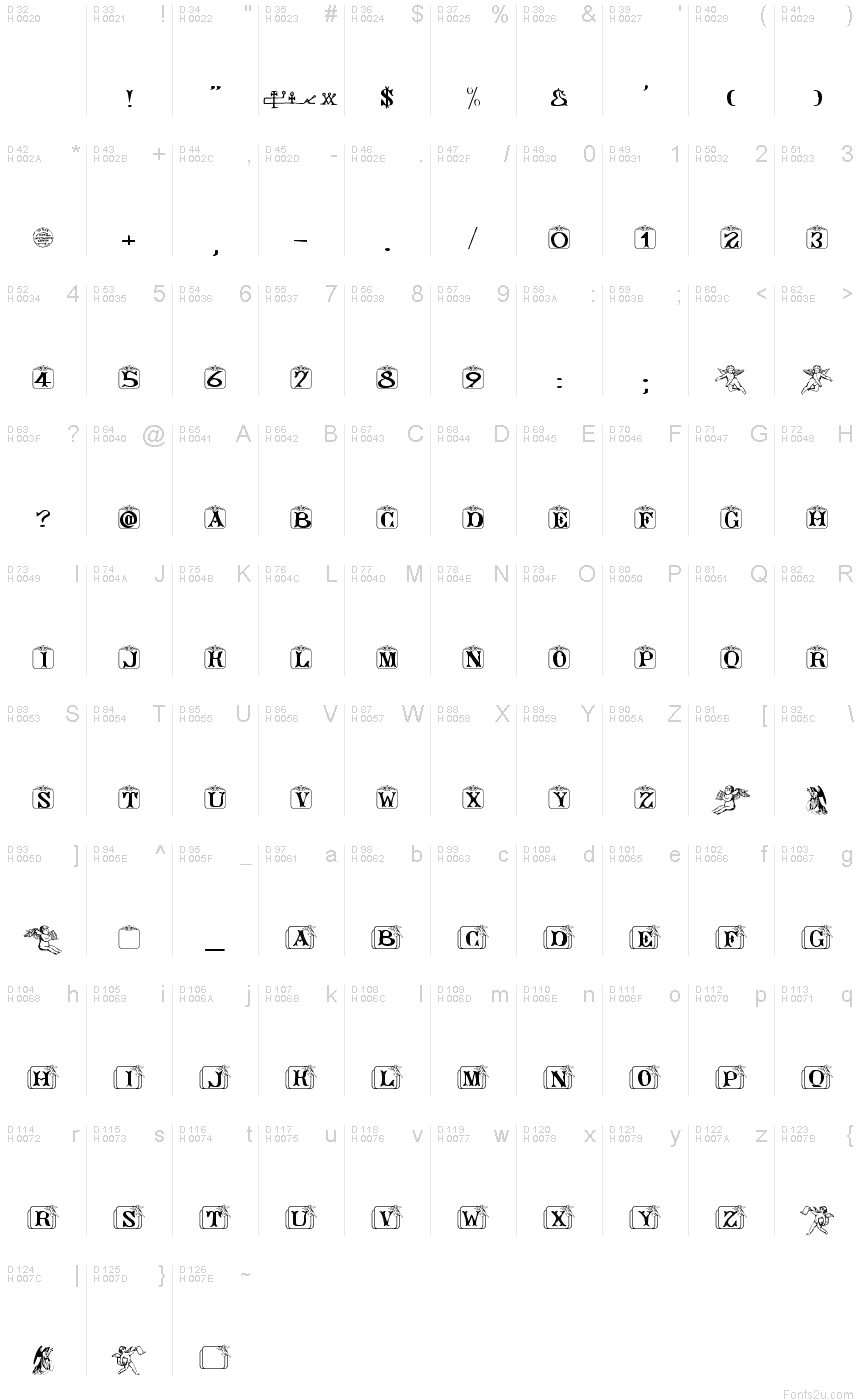
Angelots
Angelots font by M.Bujardet is a free decorative display typeface that turns every letter into a tiny illustrated vignette. Each character sits inside an ornate cartouche, framed with curling lines and crowned by playful little angels, giving your words the feel of antique signage or a Victorian keepsake. The dense black interiors contrast with the delicate outer flourishes, so even with all its ornament, the text still reads with a bold, poster-like punch.
Using Angelots, you can instantly give headlines a romantic, old-world aura for wedding invitations, vintage-themed packaging, book covers, menus, event posters, or whimsical branding. This free font shines when set large, where the cherubs and borders have room to breathe and show off their detail. Pair Angelots with a clean serif or sans for body copy to keep layouts readable while letting the ornate letters steal the spotlight.